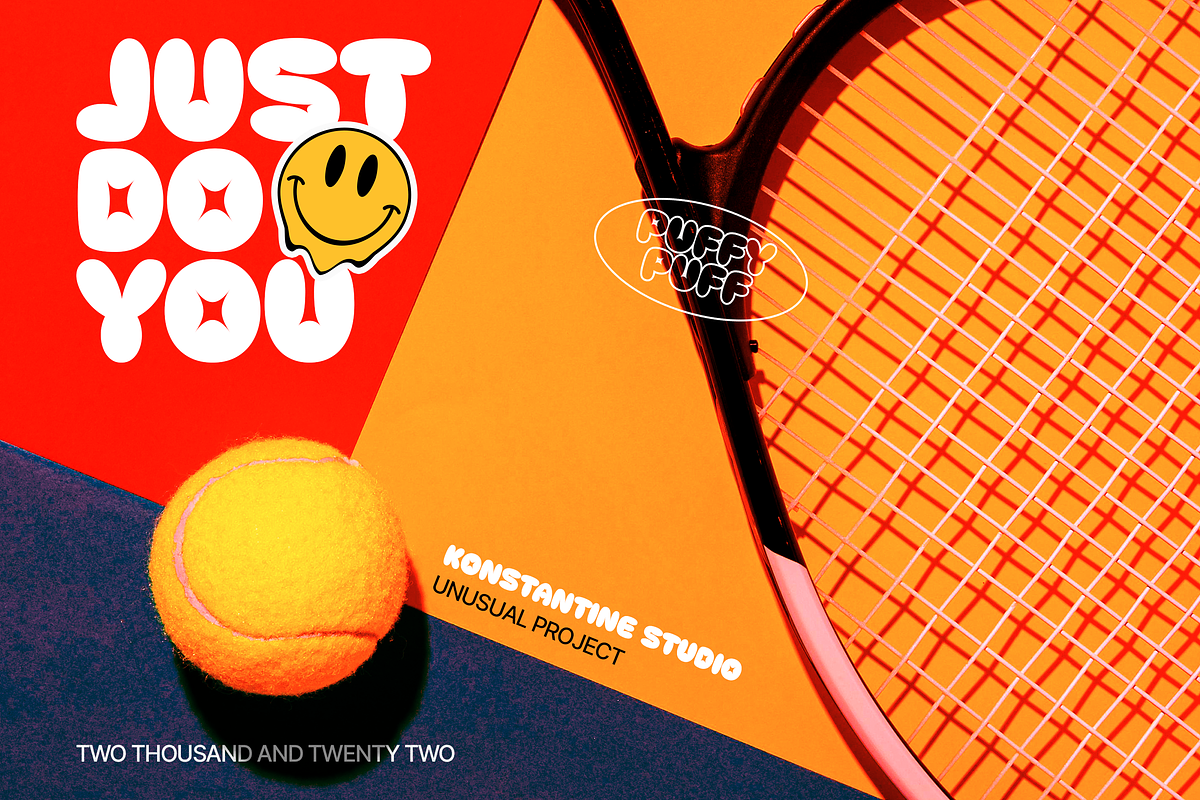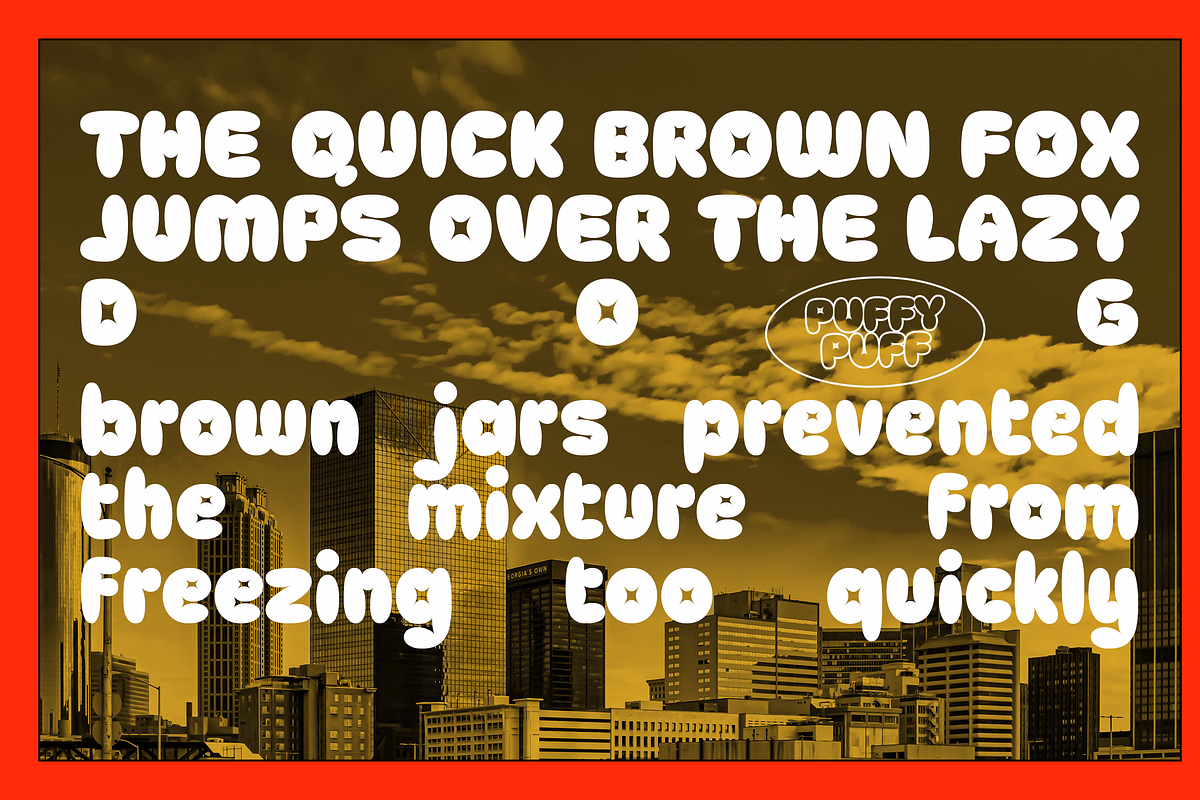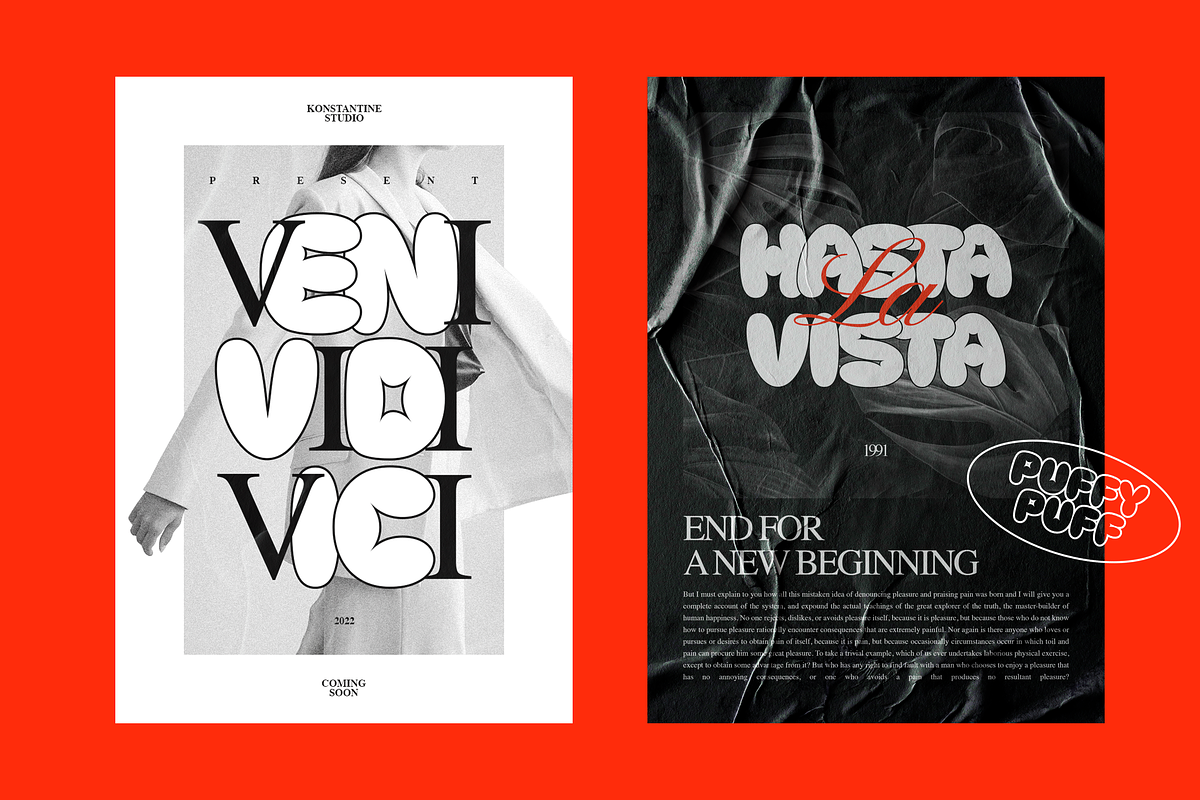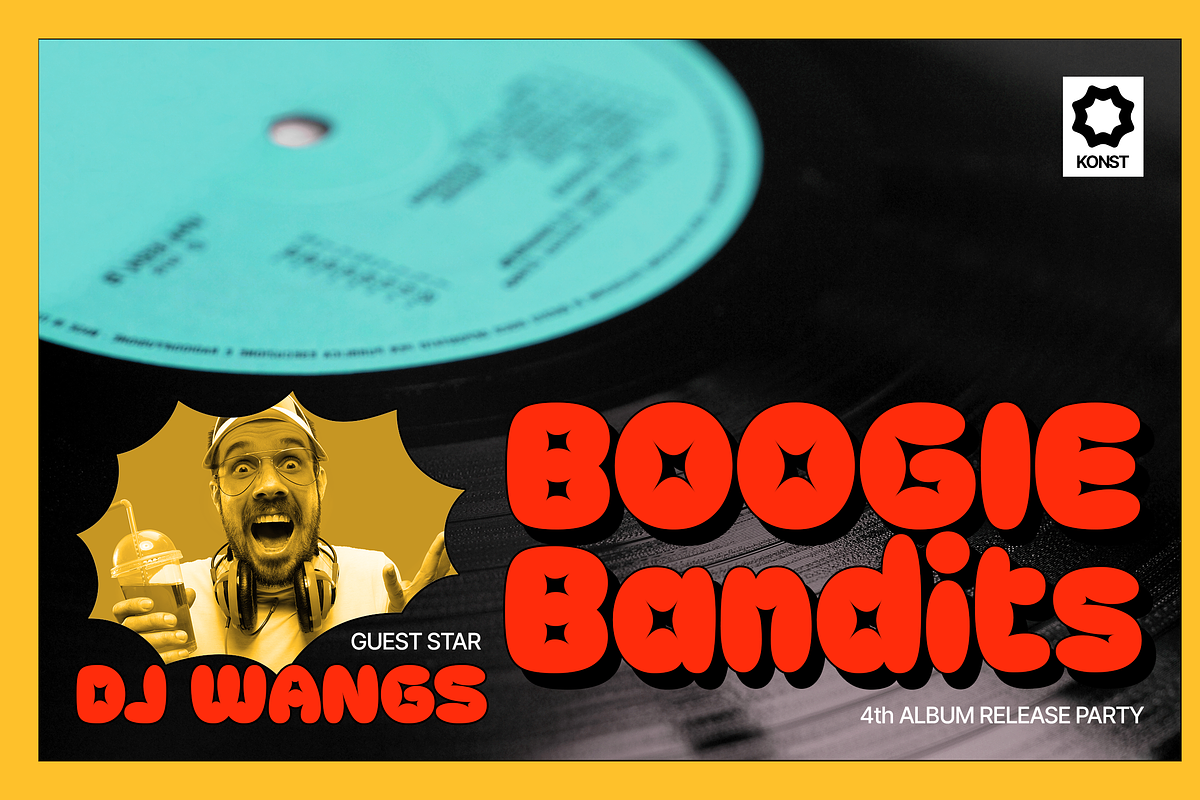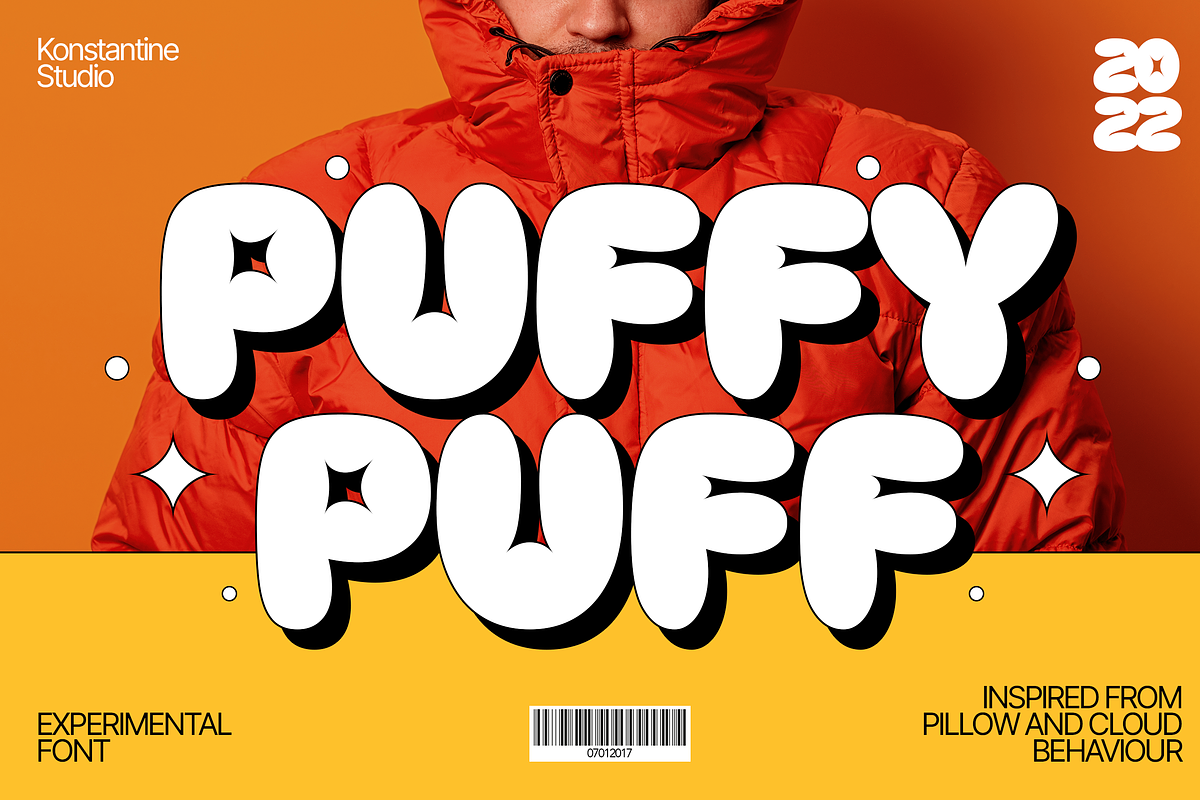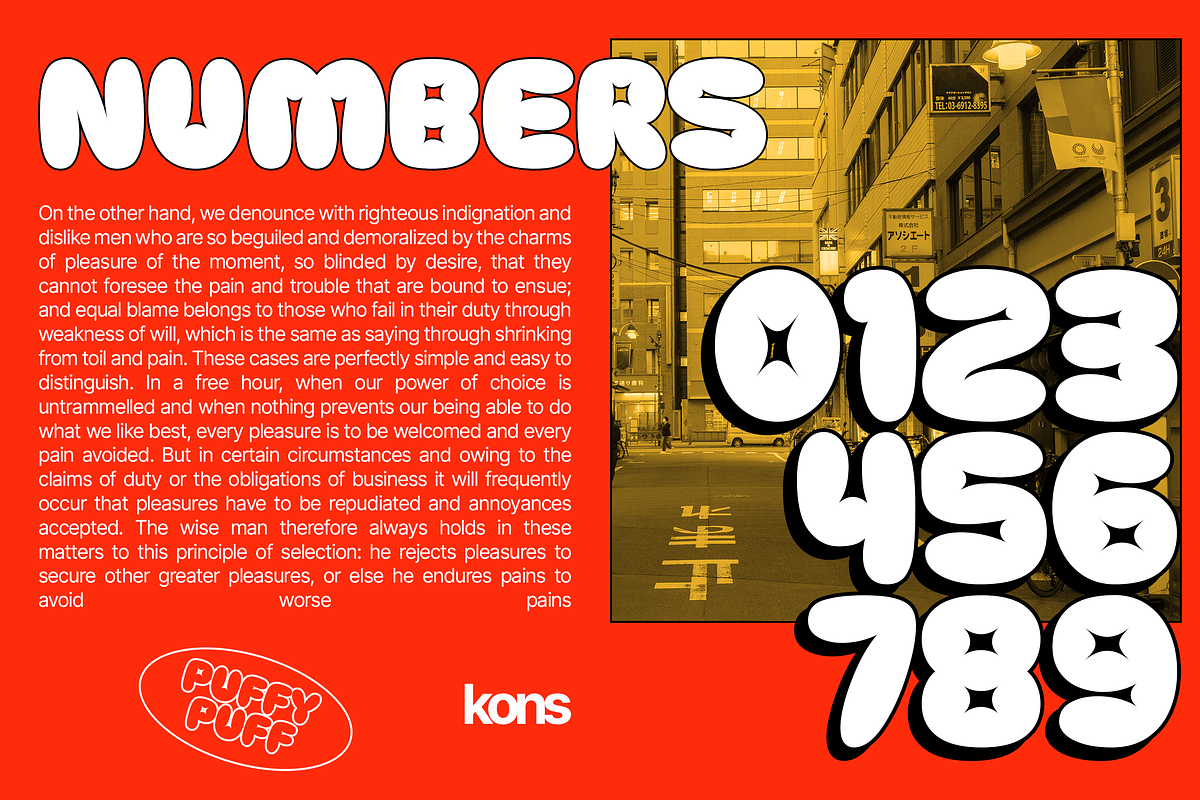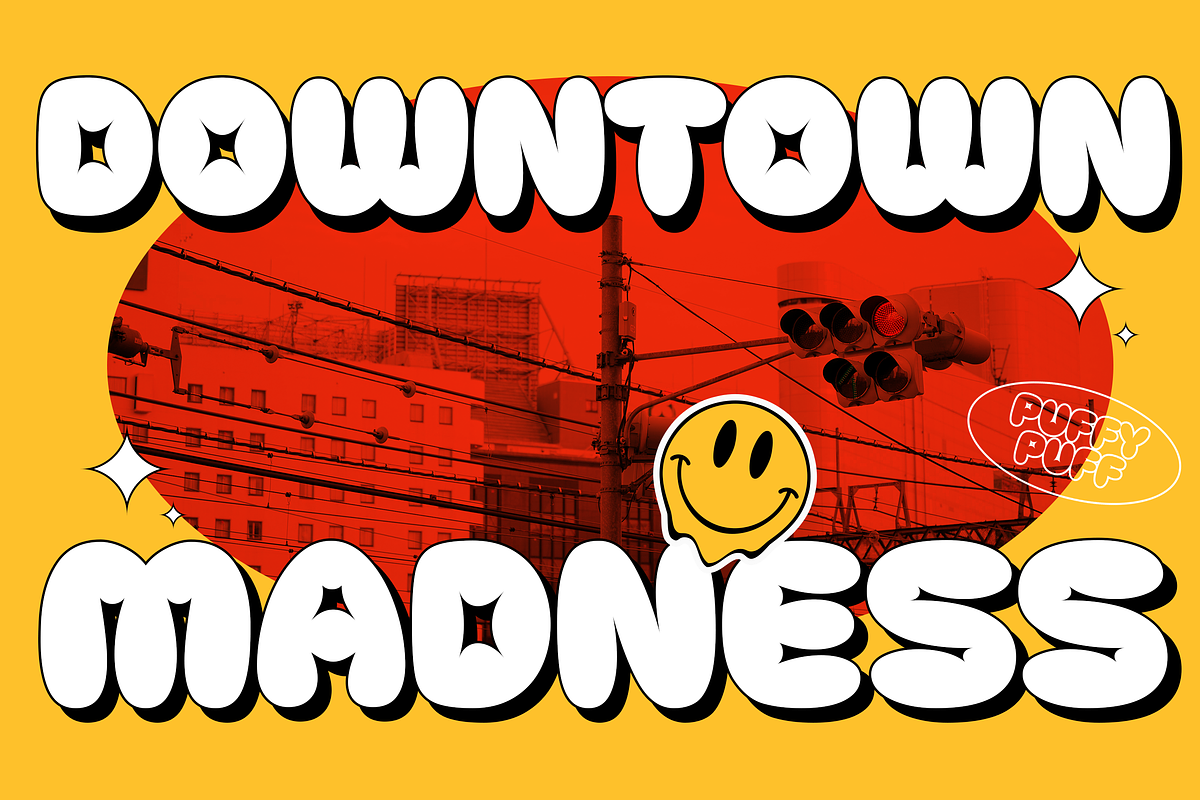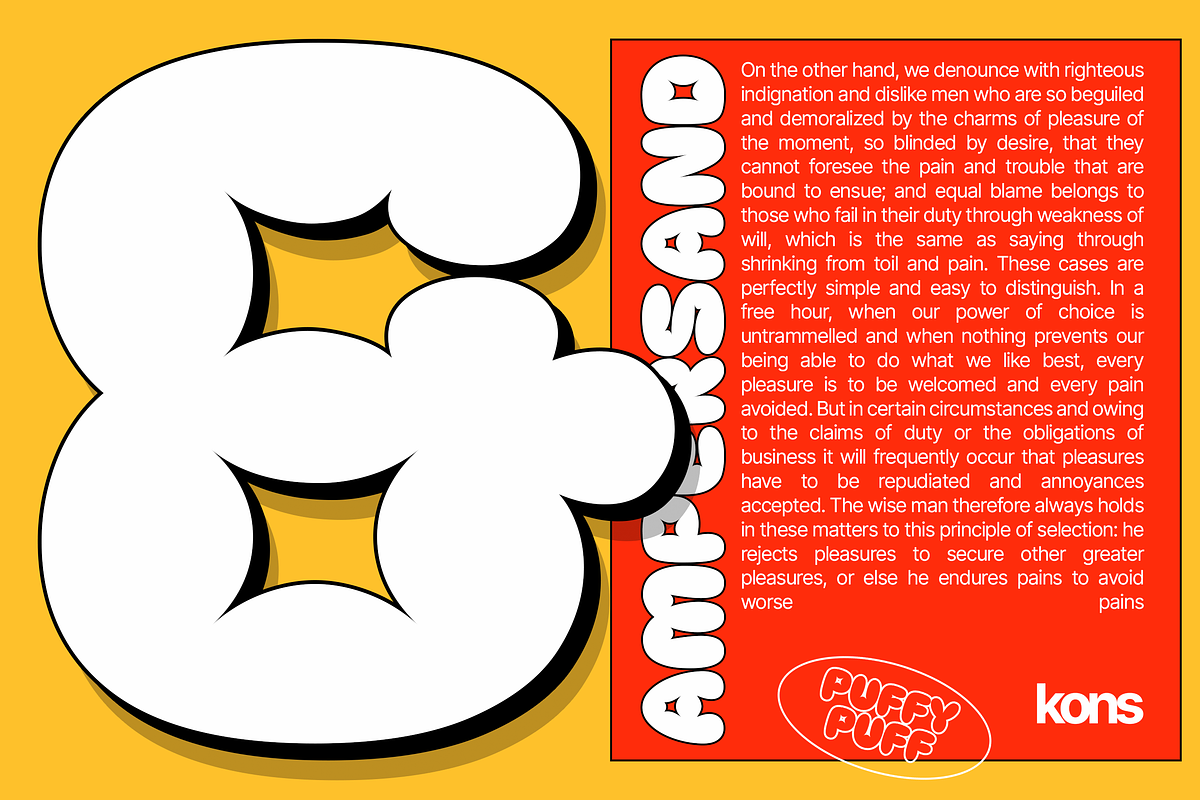
Puffypuff - Bubble Pop Display Fonts
Introducing the Puffypuff - A new experimental display typeface inspired by the pillow and cloud shape and behavior. Interpreted into a bunch of letters, so it can be a font that you can't resist to have.
- Play with strokes to give bold comical and vintage vibes.
- Duplicate the word and make it all black for the back one, and slide it down a little bit to make a shadow effect.
- Mix the letters with other fonts in one word to make such an experimental visual concept with it (see 3rd poster). Perfectly fit for logo, branding, poster, music project, album cover, cover artwork, events, y2k concept, graffiti concept, brutalism, modern aesthetic, graphic design project, fashion, apparel, merchandise, and many more.